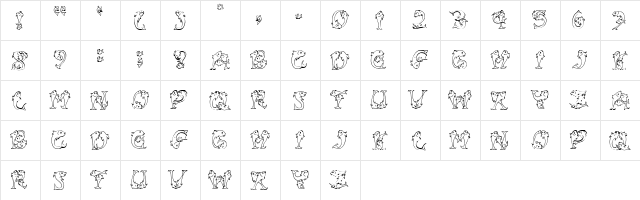
DEEP BLUE SEA Regular
Design Context for DEEP BLUE SEA Typeface
DEEP BLUE SEA is a composed and adaptable typeface that performs quietly and consistently across a wide range of design contexts.